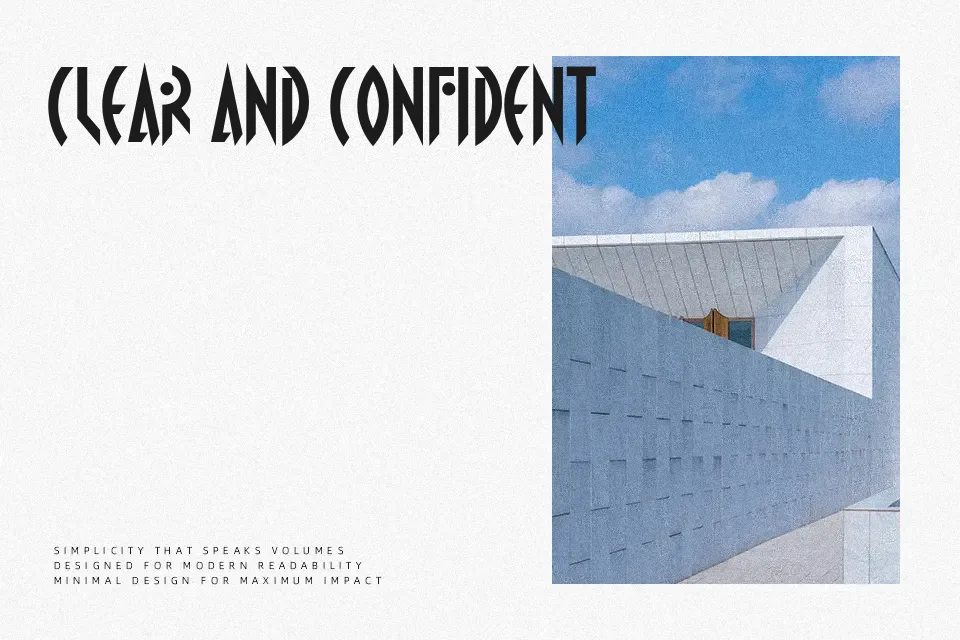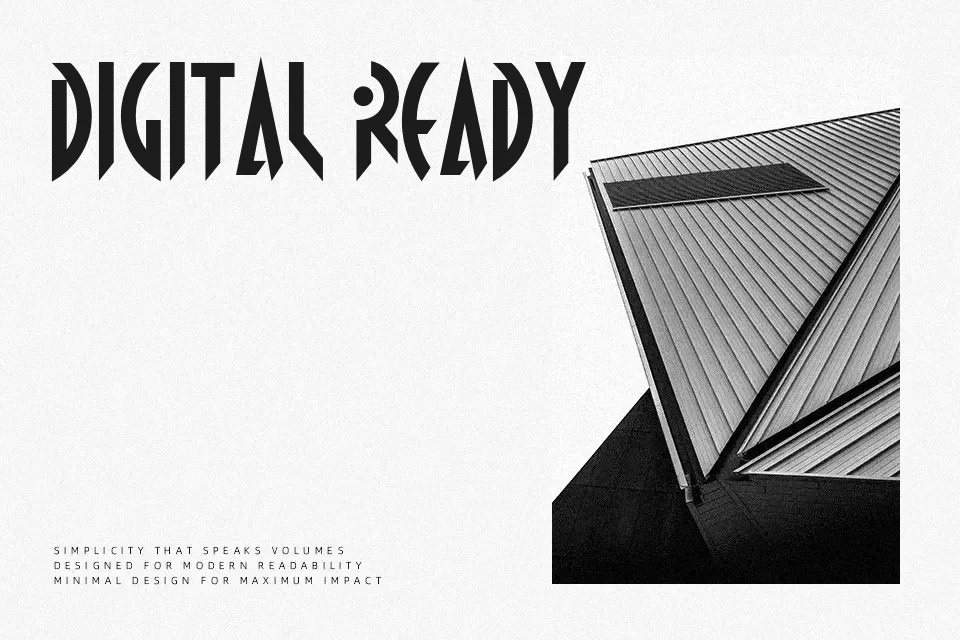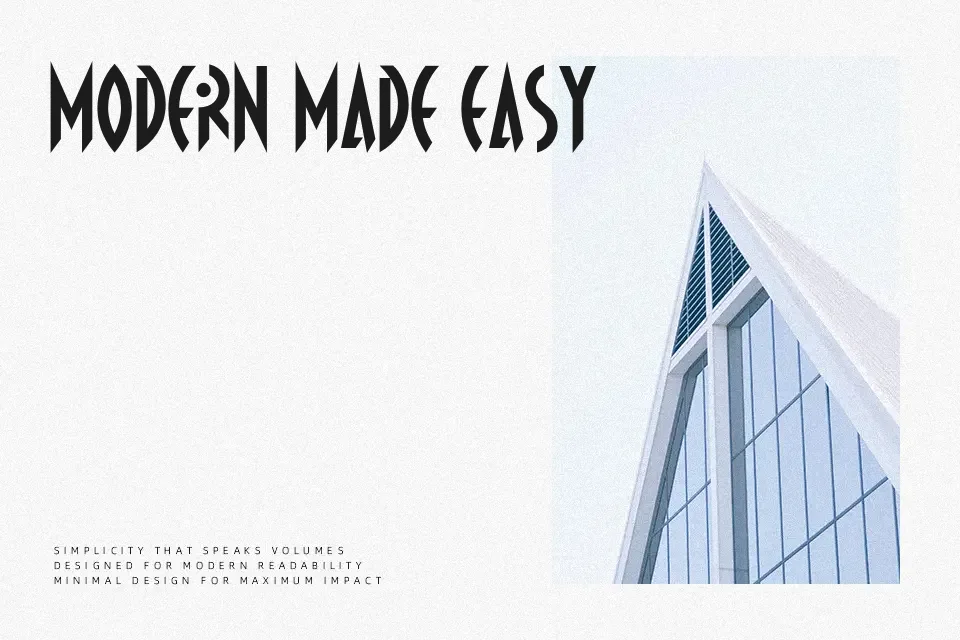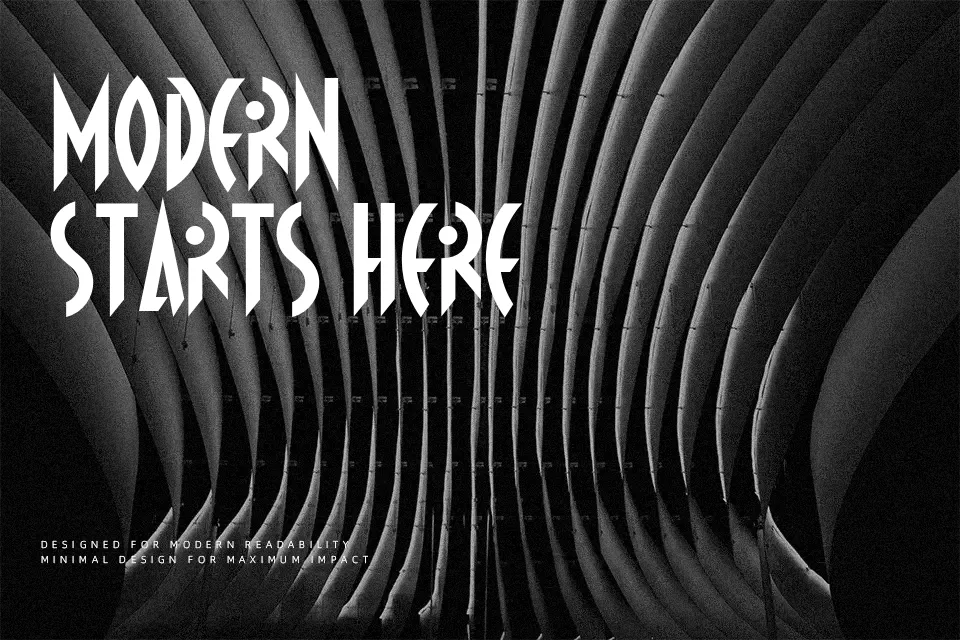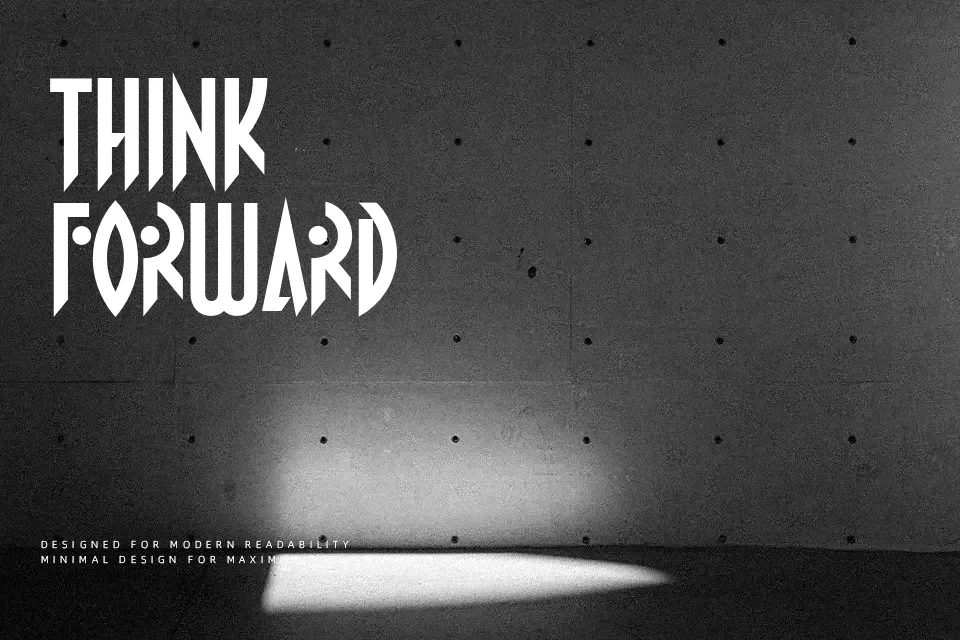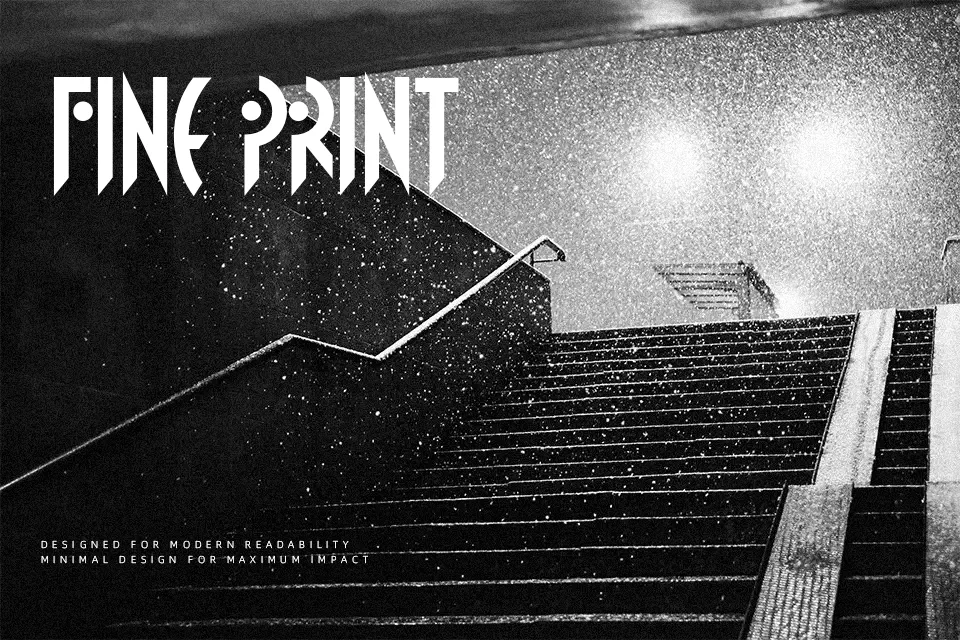
Propaniac Font
Designed by Typodermic Fonts
A bold music poster or energetic headline benefits from the commanding presence of Propaniac Font. Built with sharp angles and heavy geometric strokes, the letterforms capture a distinctly postmodern 1980s aesthetic. Unique circular cutouts contrast against rigid lines, creating a striking interplay within the slightly condensed proportions. The tight visual rhythm emphasizes its power, making the design highly effective for large-scale applications. The bold strokes maintain strong visibility in large display text, but these intricate decorative details become less effective at smaller sizes. Due to its dense structural complexity, the typeface reduces continuous reading comfort, functioning primarily as an eye-catching display choice for retro branding, album covers, and creative packaging.
retro album covers
technology branding
bold packaging designs
Perfect for branding, music, and packaging, with a bold and display style.